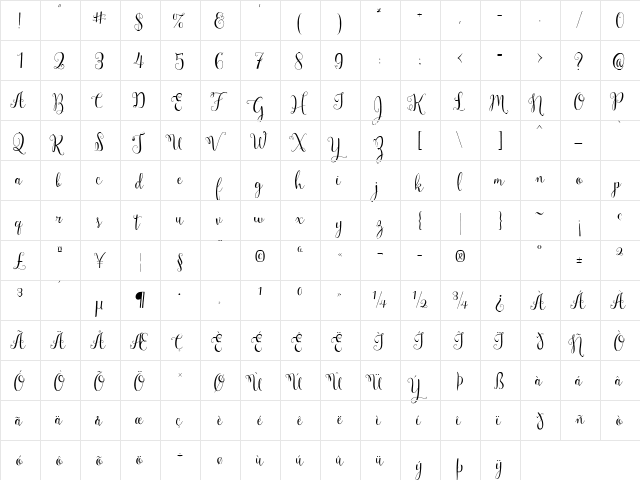
Mulberry Script Regular
| Foundry | Cultivated Mind |
| Designer | Cindy Kinash |
Design Context for Mulberry Script Typeface
Mulberry Script brings a calligraphic fluidity to the page — its connecting strokes and expressive curves give it an unmistakably human quality.
Font Pairing: Combine Mulberry Script with a simple geometric sans for maximum contrast — the tension between flowing curves and clean structure is a classic typographic pairing.
Pro Tip: Use Mulberry Script for short runs of text — names, titles, or taglines. Extended body copy in script faces tires the eye quickly.